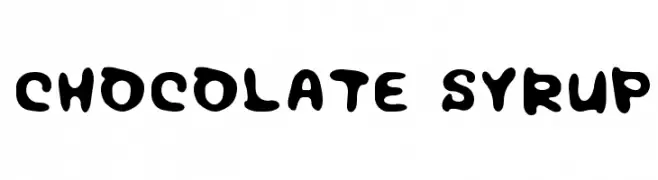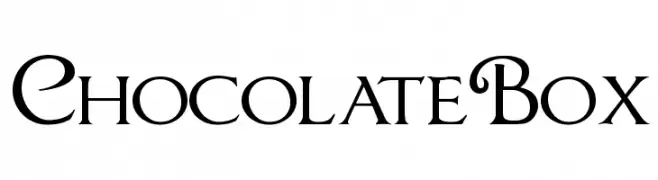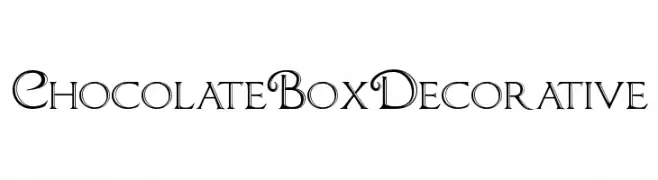
ChocolateBox Font
Font by Paul Lloyd
An elegant and decorative serif font with intricate curves and flourishes.
ChocolateDealer-Bold Font
Font by billyargel.blogspot.com - Billy Argel
A bold, cursive font with dynamic curves and a shadow effect for added depth.
ChocolateBoxDecorative Font
Font by Paul Lloyd
An ornate and decorative font with intricate curves and flourishes.
PaintingWithChocolate Font
Font by
mooze
A bold, brush-stroke font with dynamic and artistic flair.
Chocolate Drops NF Font
Font by Nick Curtis - www.nicksfonts.com
A bold, retro-style font with a 3D shadow effect.
chocolate cake Font
Font by Maelle.K - Thomas Boucherie
A playful, bold font with rounded, bubble-like characters.
Chocolate Smoothies Demo Font
Font by Mocha Frappuccino
A playful, rounded font with smooth curves and consistent stroke width, ideal for friendly designs.
Chocolate Bar Demo Font
Font by Studio Typo
A playful, bold typeface with rounded, bubbly characters ideal for fun designs.
Chocolate-Factory Font
Font by Jens R. Ziehn - www.filmhimmel.com
A whimsical, bold serif font with playful, decorative elements.
Chocolate Cavalcade Font
A bold, rounded font with a playful and modern aesthetic.
Chocolate Crispy Font
Font by Riyadh Rahman
A playful, rounded font with a casual, handwritten style.
Chocolate Covered Raindrops Bold Font
Font by Vanessa Bays - bythebutterfly.com
A playful, bold handwritten font with a whimsical and casual vibe.
PT Chocolate Dip Font
A bold, playful font with a 3D effect and vintage flair.
Chocolate Covered Raindrops Font
Font by Vanessa Bays - bythebutterfly.com
A playful handwritten font with smooth, rounded strokes and a casual vibe.
Chocolate syrup Font
Font by Colorful Typhoon - http://orange.s56.xrea.com/blog/
A playful, bold font with rounded, dripping characters.
Bite Chocolate Font
Billy Argel - billyargel.com/
A flowing, cursive script font with elegant, sweeping forms and playful flourishes.
ChocolateDropsNF Font
Font by Nick Curtis - www.nicksfonts.com
A bold, playful font with a 3D shadow effect, perfect for dynamic and fun designs.
Thick Chocolate Font
Font by Loraine Wauer Ferus www.billybear4kids.com
A bold, playful font with thick, rounded characters and a whimsical style.
ZigZag Chocolate Font
Font by nomlimofont